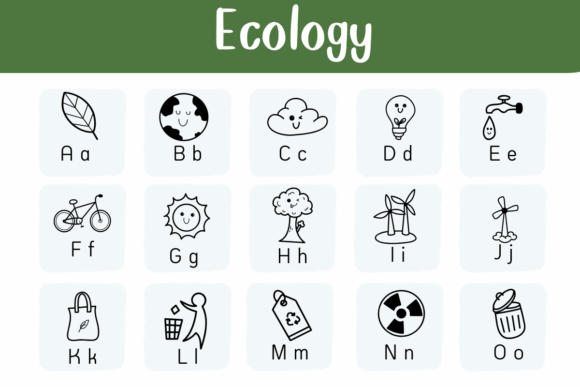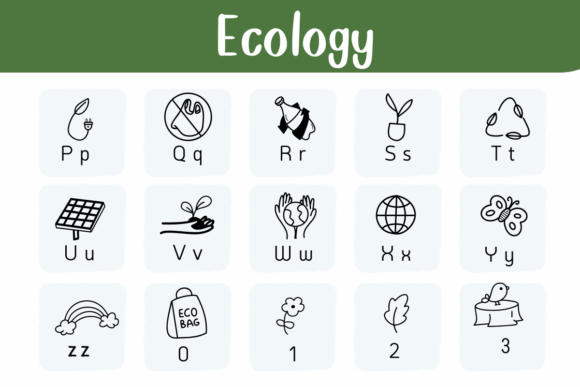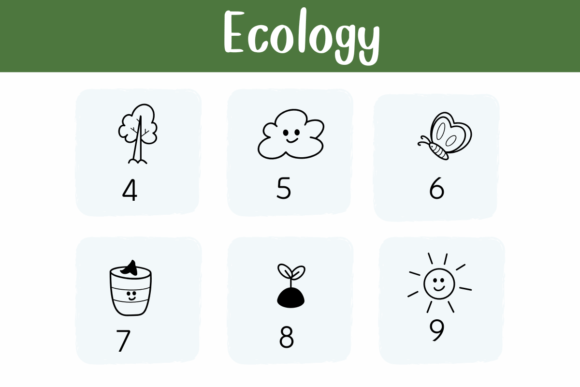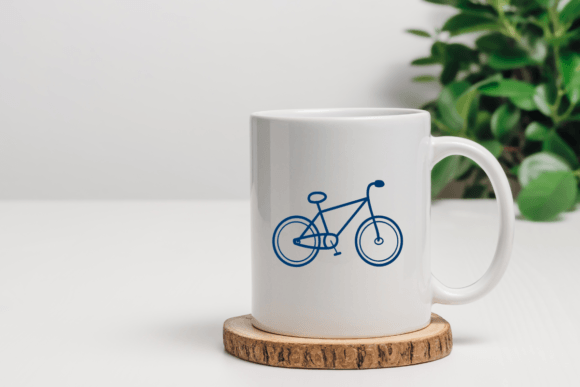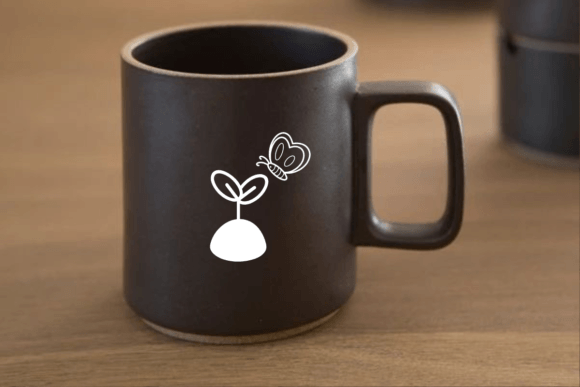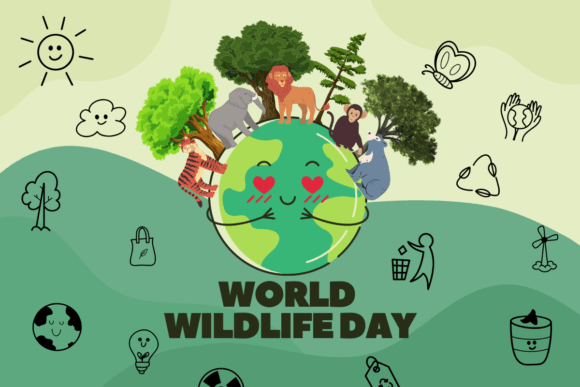
Ecology Dingbat Font: A Playful Collection of Eco-Friendly Symbols
In the world of design, typography plays a crucial role in conveying messages and expressing creativity. For designers and crafters looking to add an eco-conscious touch to their work, the Ecology Dingbat Font is an excellent choice. This unique font is a collection of playful symbols and icons inspired by nature and environmental themes, making it perfect for projects that promote sustainability and eco-friendliness.
What is Ecology Dingbat Font?
The Ecology Dingbat Font is a specially designed font that features a wide range of eco-friendly symbols and icons. Each character in the font represents elements like trees, animals, and sustainable practices, making it an ideal choice for designers who want to convey an eco-conscious message. The font is perfect for use in various design projects, including brochures, posters, websites, and social media graphics.
Key Features of Ecology Dingbat Font
- Unique and Playful Design: The Ecology Dingbat Font features a unique and playful design that is sure to grab attention. The font is made up of various eco-friendly symbols and icons that are both fun and engaging.
- Eco-Friendly Themes: The font is inspired by nature and environmental themes, making it perfect for designers who want to promote sustainability and eco-friendliness.
- Wide Range of Characters: The Ecology Dingbat Font features a wide range of characters, including trees, animals, and sustainable practices.
Benefits of Using Ecology Dingbat Font
Using the Ecology Dingbat Font in your design projects offers several benefits. Here are a few:
- Adds an Eco-Conscious Touch: The font adds an eco-conscious touch to your designs, making it perfect for projects that promote sustainability and eco-friendliness.
- Increases Engagement: The playful and unique design of the font is sure to grab attention and increase engagement.
- Versatile: The font can be used in various design projects, including brochures, posters, websites, and social media graphics.
- Supports Eco-Friendly Values: By using the Ecology Dingbat Font, designers can show their support for eco-friendly values and promote sustainability.
Here are some tips for designers and crafters who want to use the Ecology Dingbat Font:
- Use in Eco-Friendly Projects: Use the font in eco-friendly projects, such as brochures, posters, and websites that promote sustainability.
- Combine with Other Fonts: Combine the Ecology Dingbat Font with other fonts to create a unique and engaging design.
- Experiment with Colors: Experiment with different colors to add an extra touch to your design.
- Be Creative: Be creative and have fun with the font. The Ecology Dingbat Font is a versatile font that can be used in various design projects.
The Ecology Dingbat Font is a unique and playful font that is perfect for designers and crafters who want to add an eco-conscious touch to their work. With its wide range of eco-friendly symbols and icons, the font is ideal for projects that promote sustainability and eco-friendliness. By using the Ecology Dingbat Font, designers can show their support for eco-friendly values and promote sustainability.